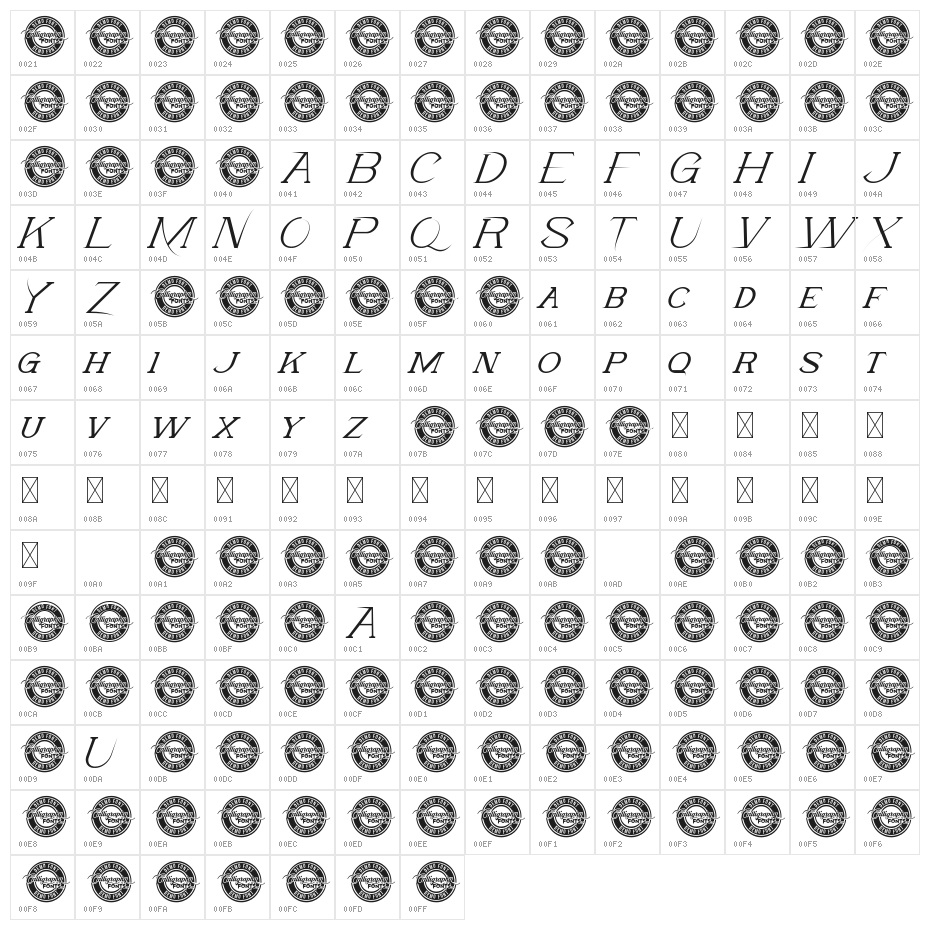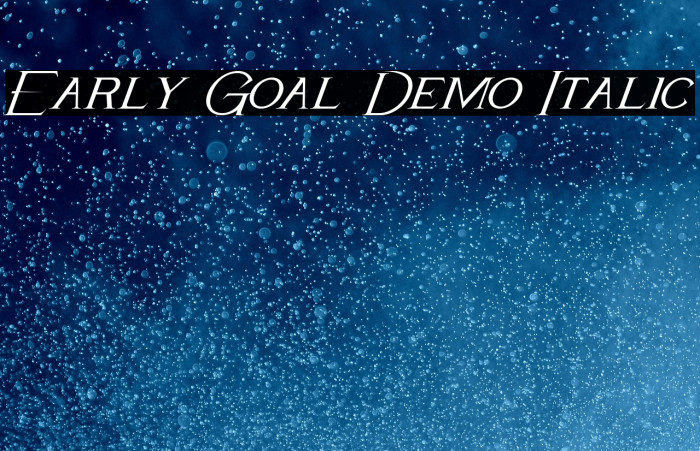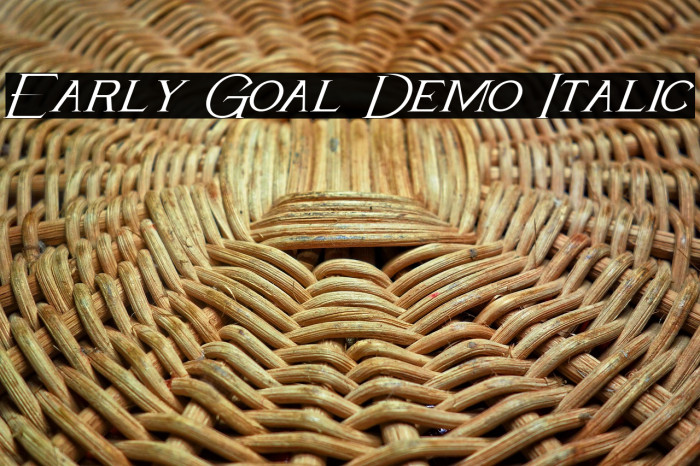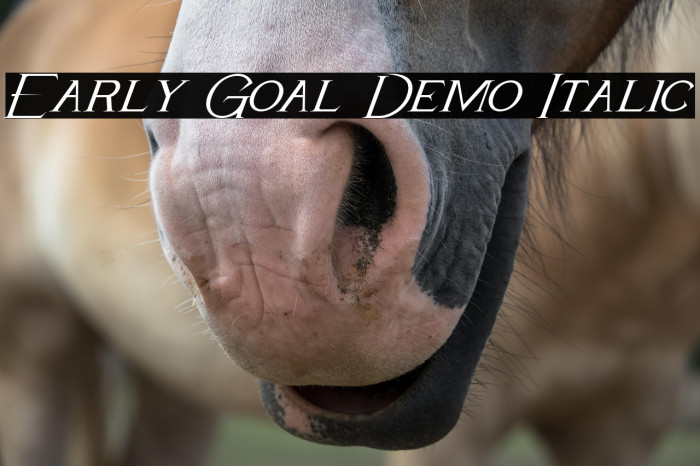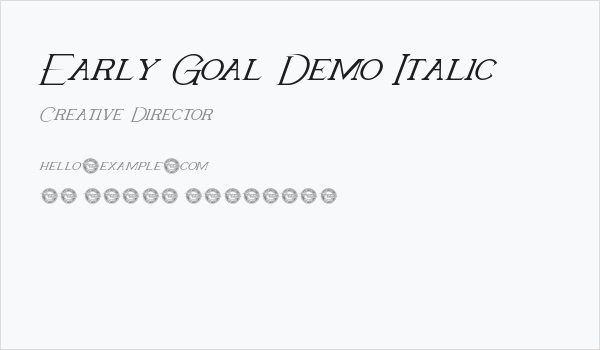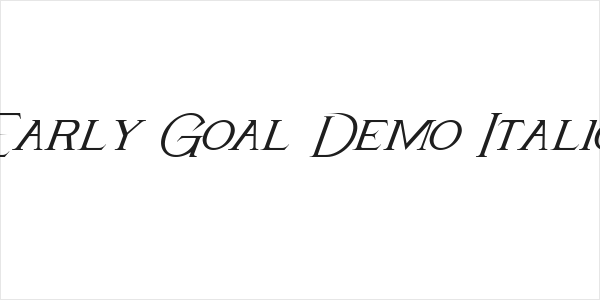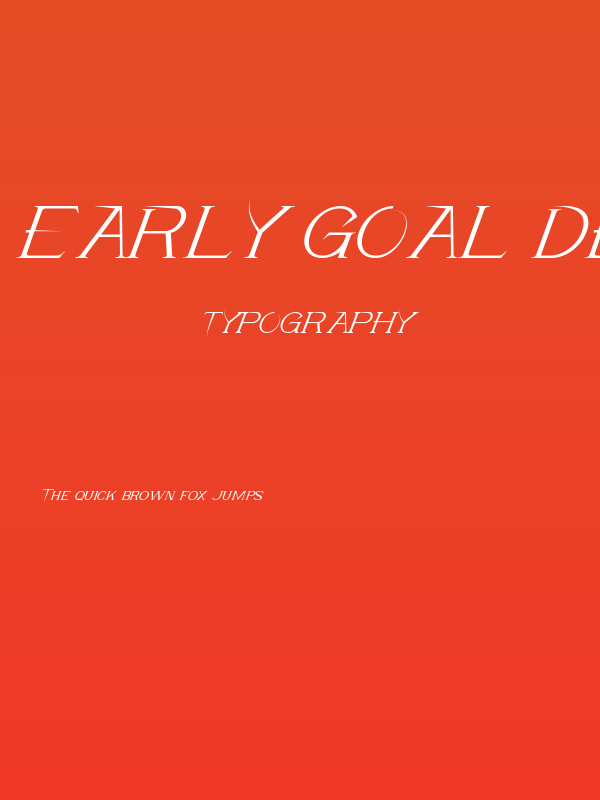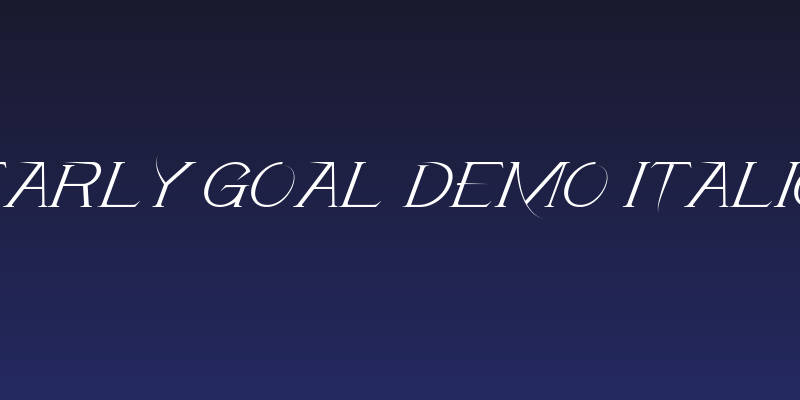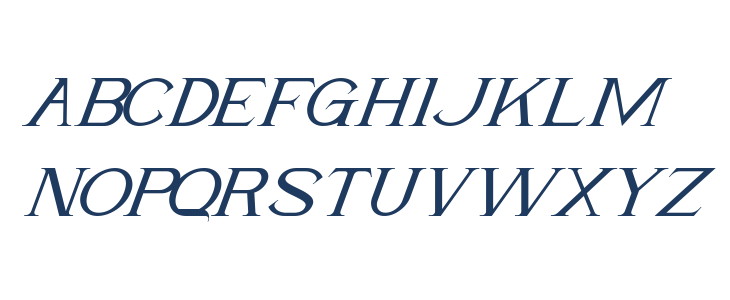
Early Goal Demo Italic Font
Early Goal Demo Italic Description
This font features a sophisticated and elegant italic style, characterized by its smooth, flowing lines and refined curves. The uppercase letters exhibit a graceful slant, enhancing the font's dynamic appearance. The lowercase letters maintain a consistent style, complementing the uppercase with their delicate and stylish form. The font's overall design is reminiscent of classic calligraphy, offering a modern twist with its clean and precise execution. The characters are well-spaced, ensuring readability while maintaining an artistic flair. This font is ideal for projects that require a touch of elegance and sophistication.